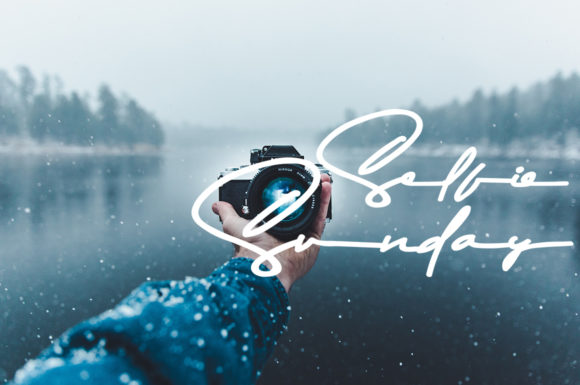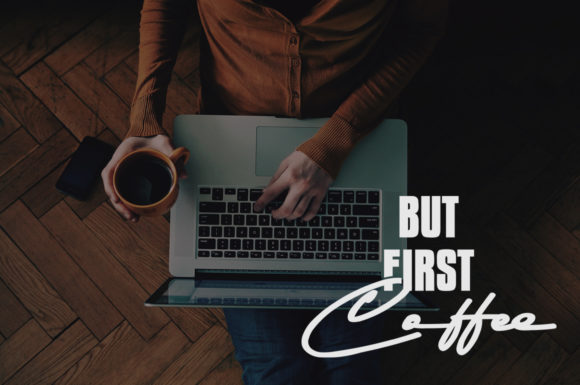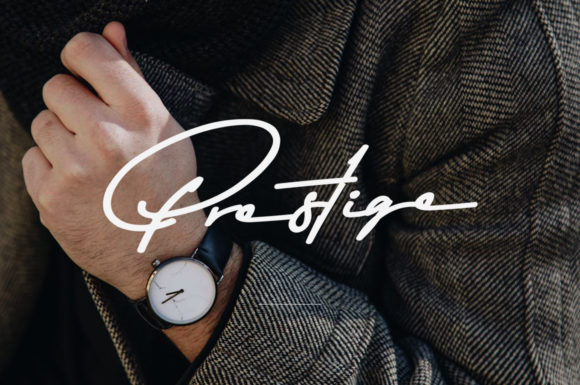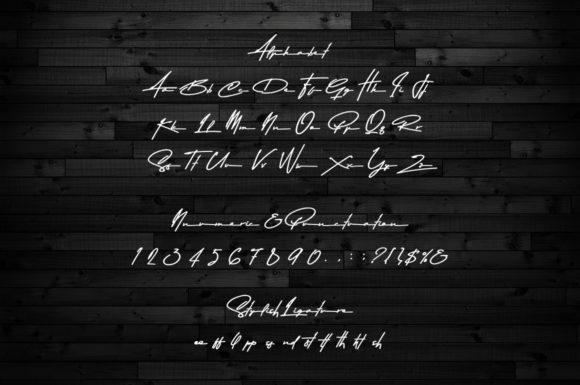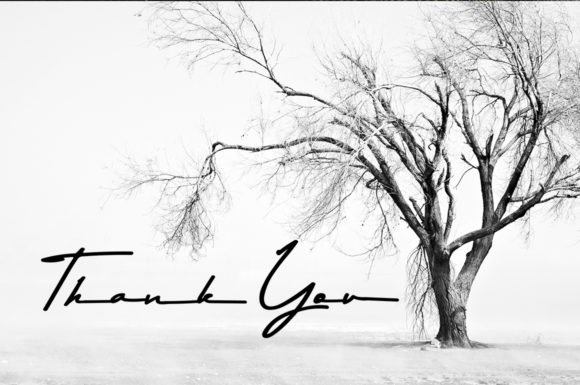
Asem Kandis Font
About Asem Kandis Font
The Asem Kandis is a handwritten signature script. It has an elegant and prestigious style and was written directly by hand without a draft to produce a natural and impressive handwriting.